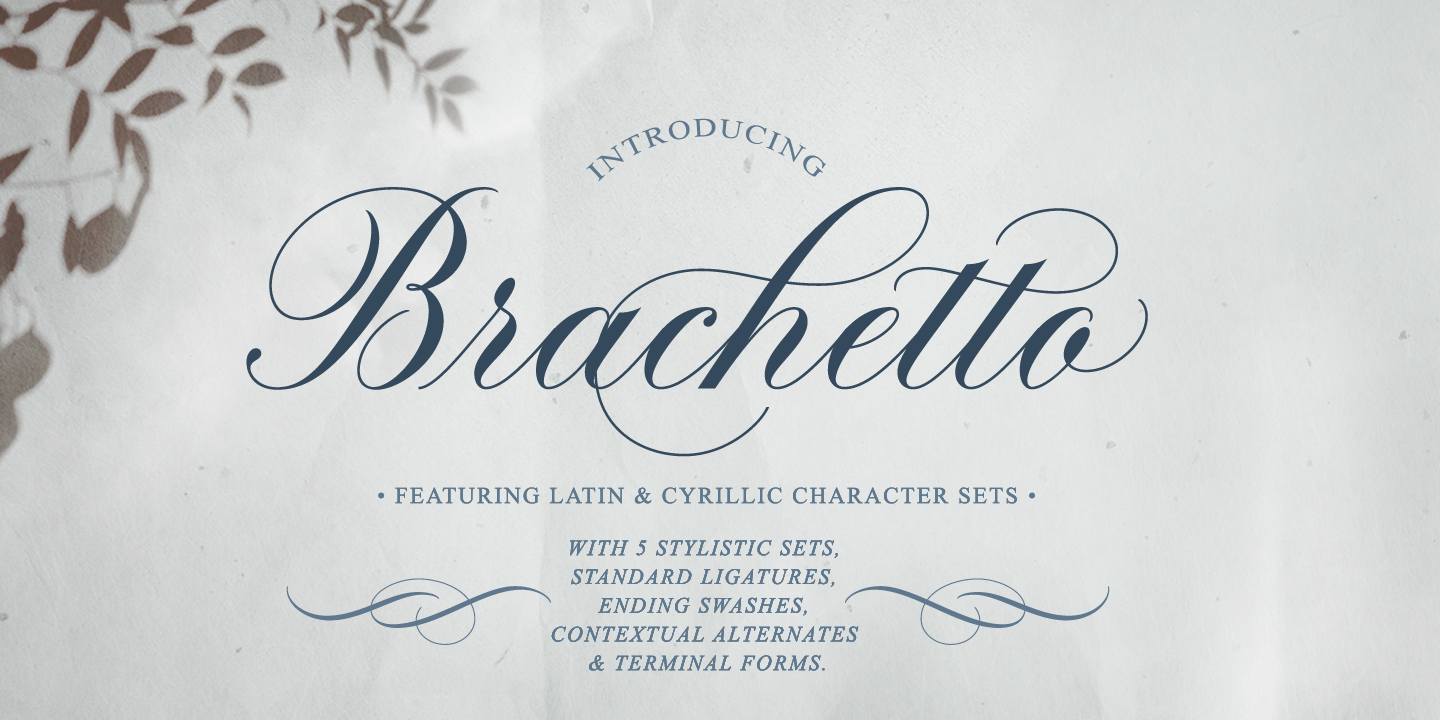
Brachetto Font Free Download is a refined and sophisticated script typeface that blends elegance with a handwritten, luxurious charm. Please note that you must purchase this font for commercial use. It is available for free download only for personal and testing purposes.
You can use Brachetto Font in high-end branding, wedding invitations, boutique packaging, signature-style logos, feminine blog headers, product labels, and elegant event posters. Its graceful strokes make it ideal for designs that demand a soft, stylish, and premium touch.
What makes Brachetto so exciting is its fluid, calligraphic movement that feels effortlessly chic. Every curve carries a sense of craftsmanship and sophistication, making your message feel more personal, artistic, and unforgettable. It’s like handwriting with silk — smooth, intentional, and full of emotion.
The Brachetto Font family includes luxurious styles such as Brachetto Regular, Brachetto Swash, Brachetto Italic, and Brachetto Signature, giving designers the tools they need to craft branding that breathes personality and poise.
If you want your typography to whisper elegance with every letter, Brachetto Font Free Download is your go-to typeface. Download it today and let this beautiful font add a touch of timeless beauty and handwritten finesse to your next masterpiece.